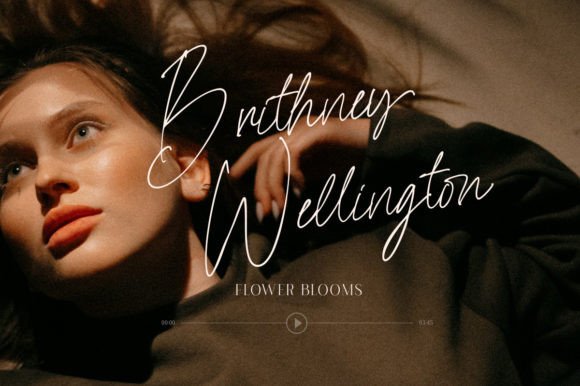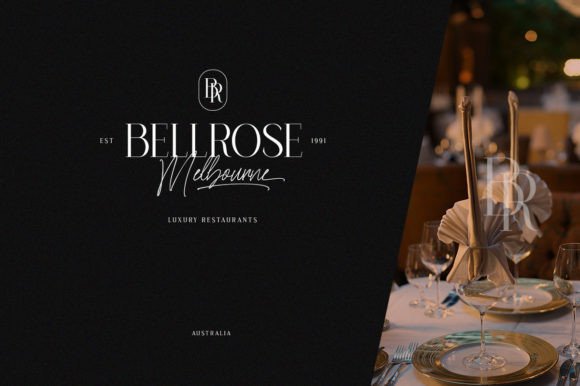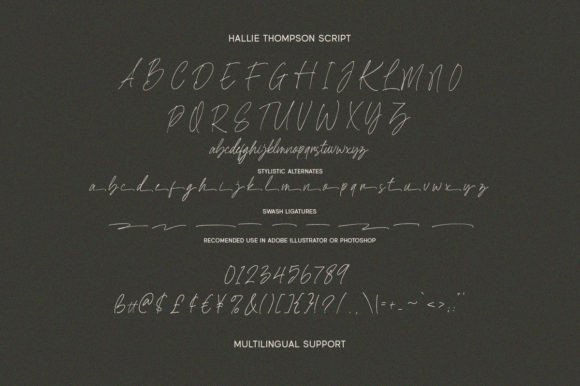
Introduction to Hallie Thompson Font
Hallie Thompson is a pair of fonts that brings a modern and elegant feel at the same time.
The serif font combined with the natural handwriting script with a signature style is the perfect match for anyone who needs a typeface for headlines, logotypes, apparel, invitations, branding, packaging, advertising, etc .